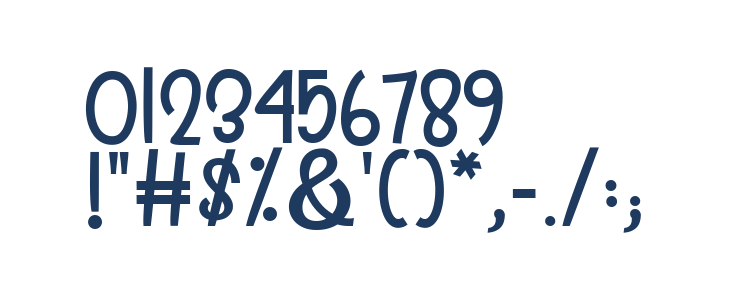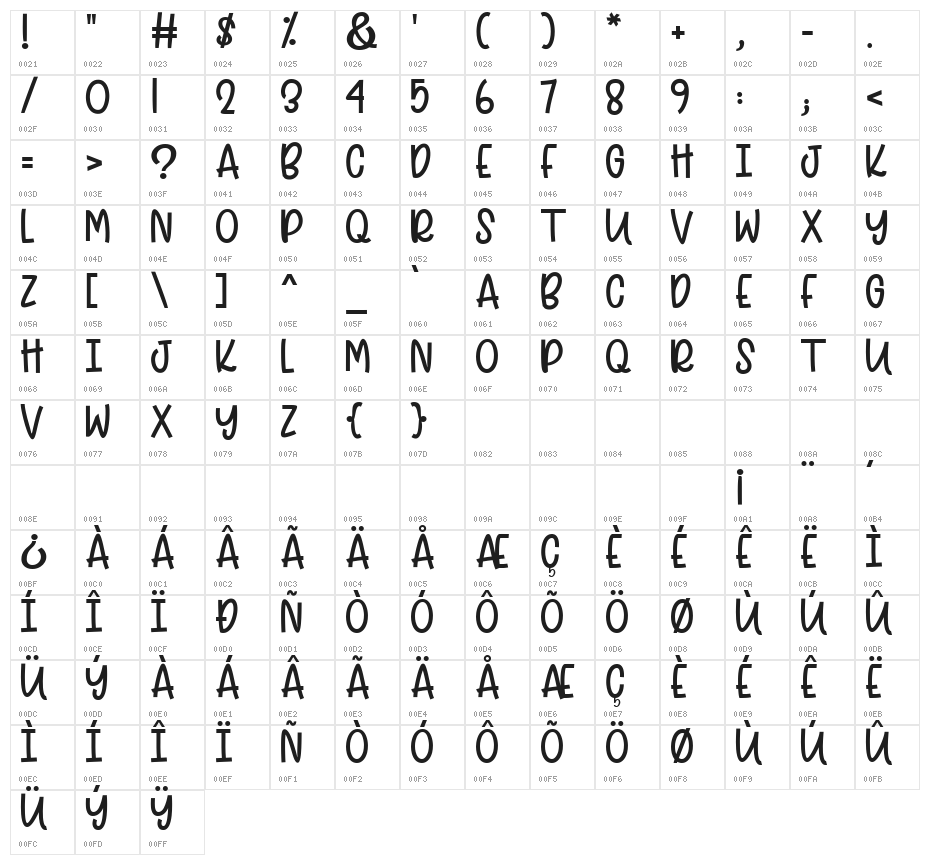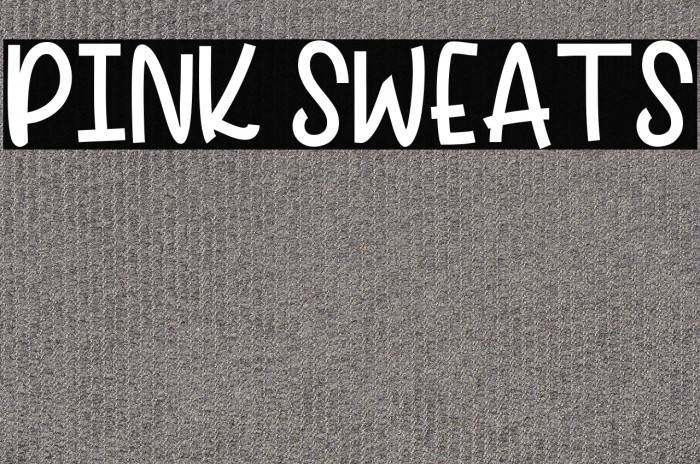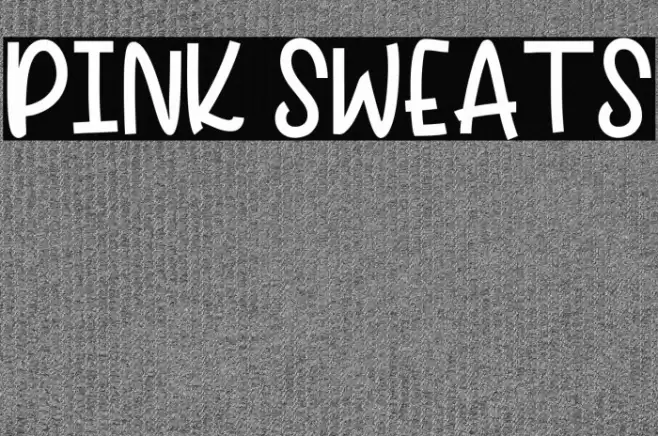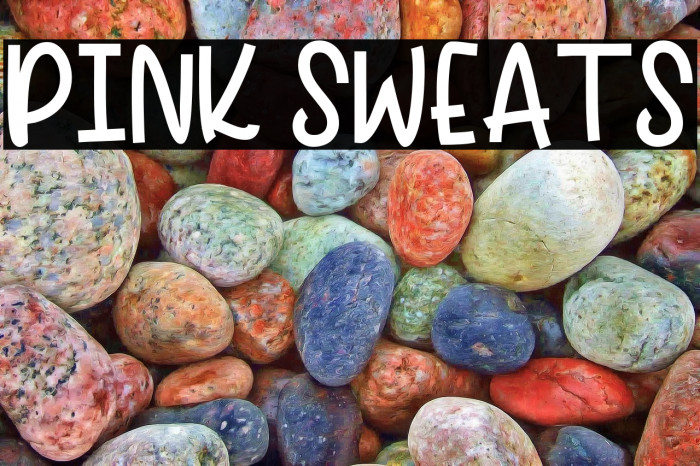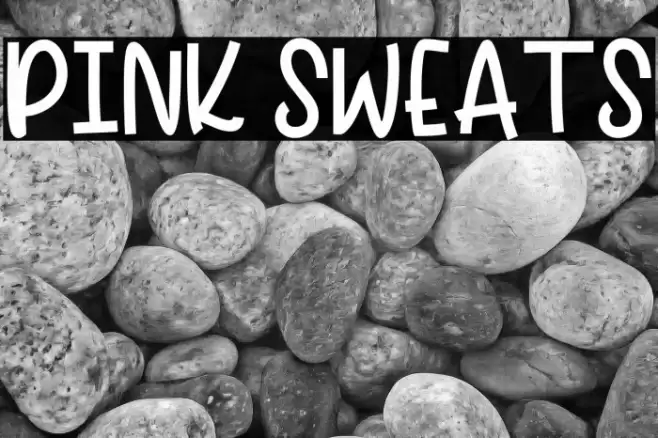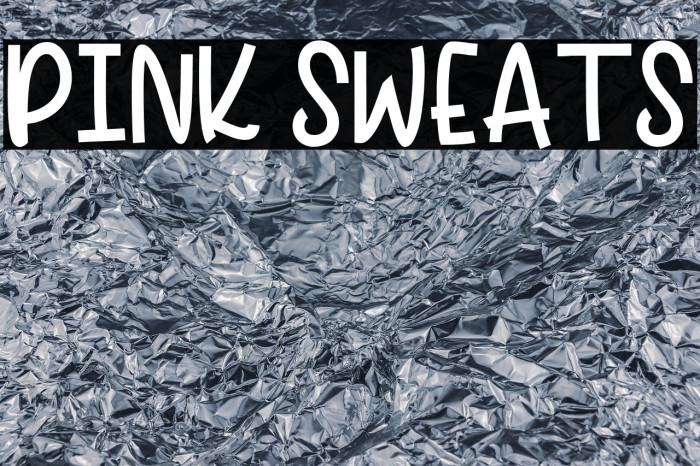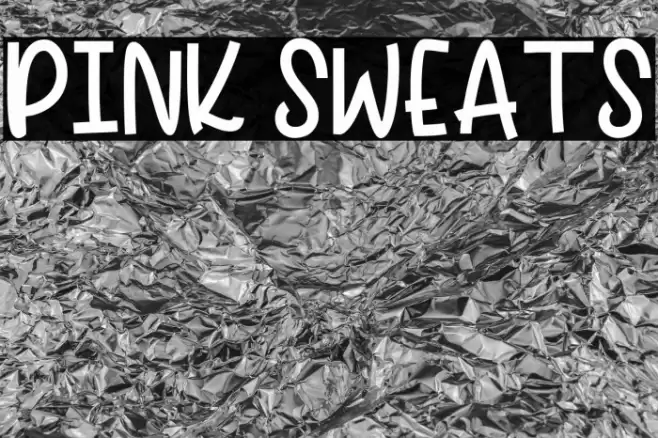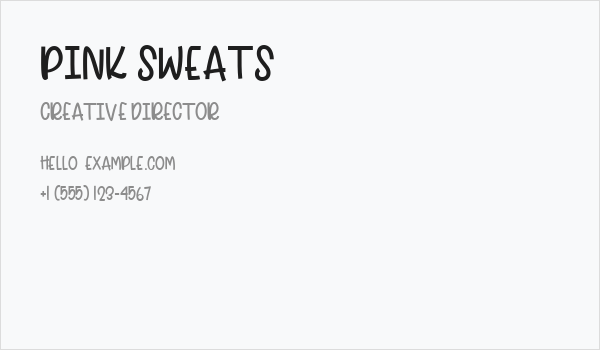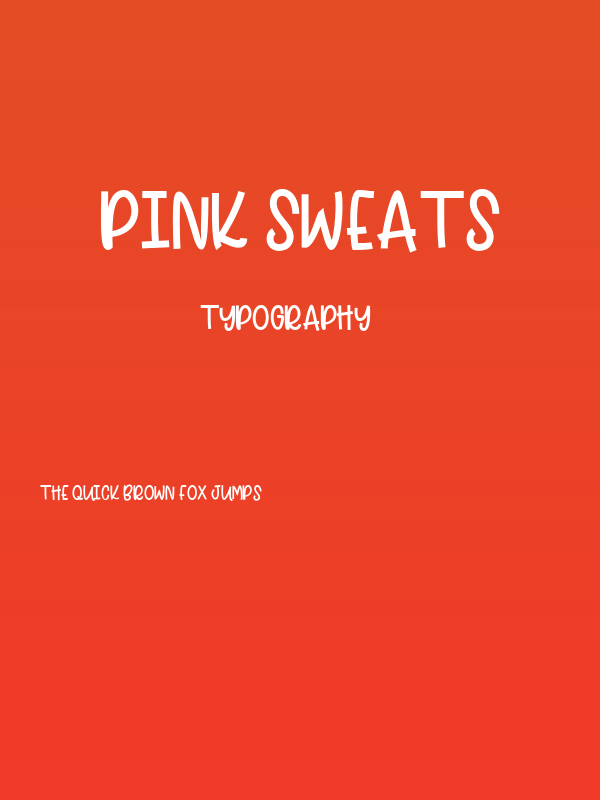
PINK SWEATS Font
PINK SWEATS Description
This playful and bold font features a handwritten style with a lively and energetic appearance. The characters are rounded and slightly irregular, giving it a casual and friendly feel. The uppercase and lowercase letters maintain a consistent thickness, while the numbers and special characters complement the overall style with their quirky and dynamic shapes. This font is ideal for projects that require a personal touch or a fun, informal vibe.
| Proposed Projects | Perfect for greeting cards, children's books, playful branding, and social media graphics. |